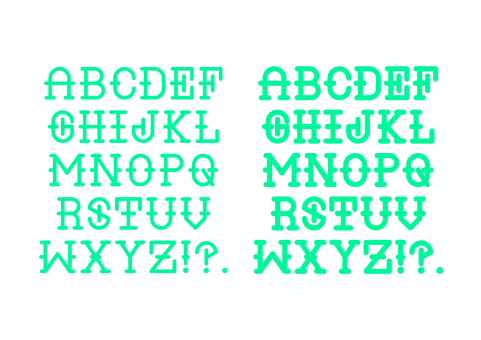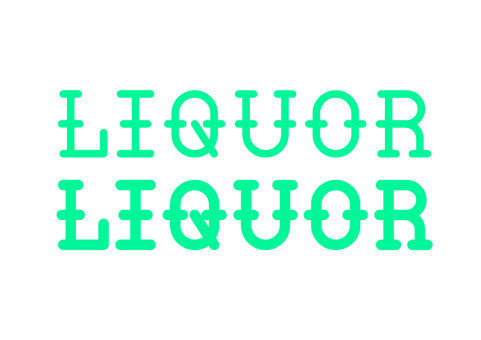
Liquor
Introducing Liquor. A brand new typeface for you to download. A contemporary western typeface
Designer: William Bayley Suckling
Publisher: William Bayley Suckling